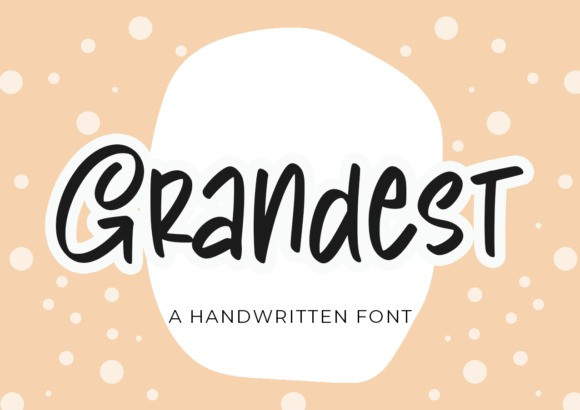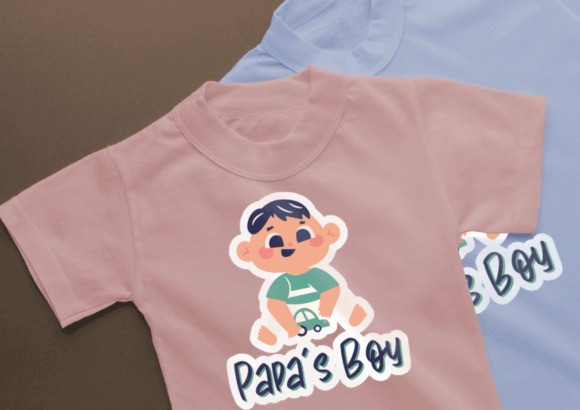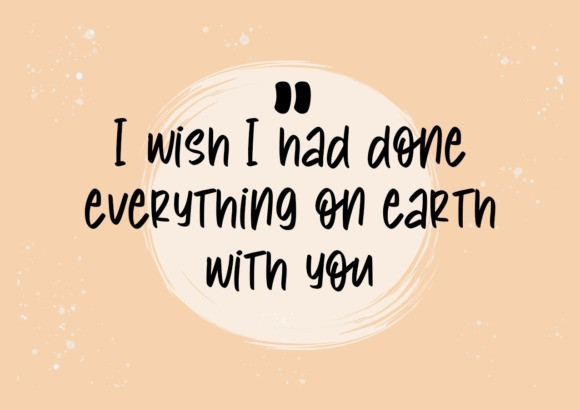
Grandest Font
Grandest is a cute yet whimsical handwritten font. Its natural and unique style makes it perfect for a wide variety of ideas. Use it on your Instagram profile, as a title for your blog post, or in your next project.
This font is PUA encoded, which means you can access all of the cute glyphs and swashes with ease!